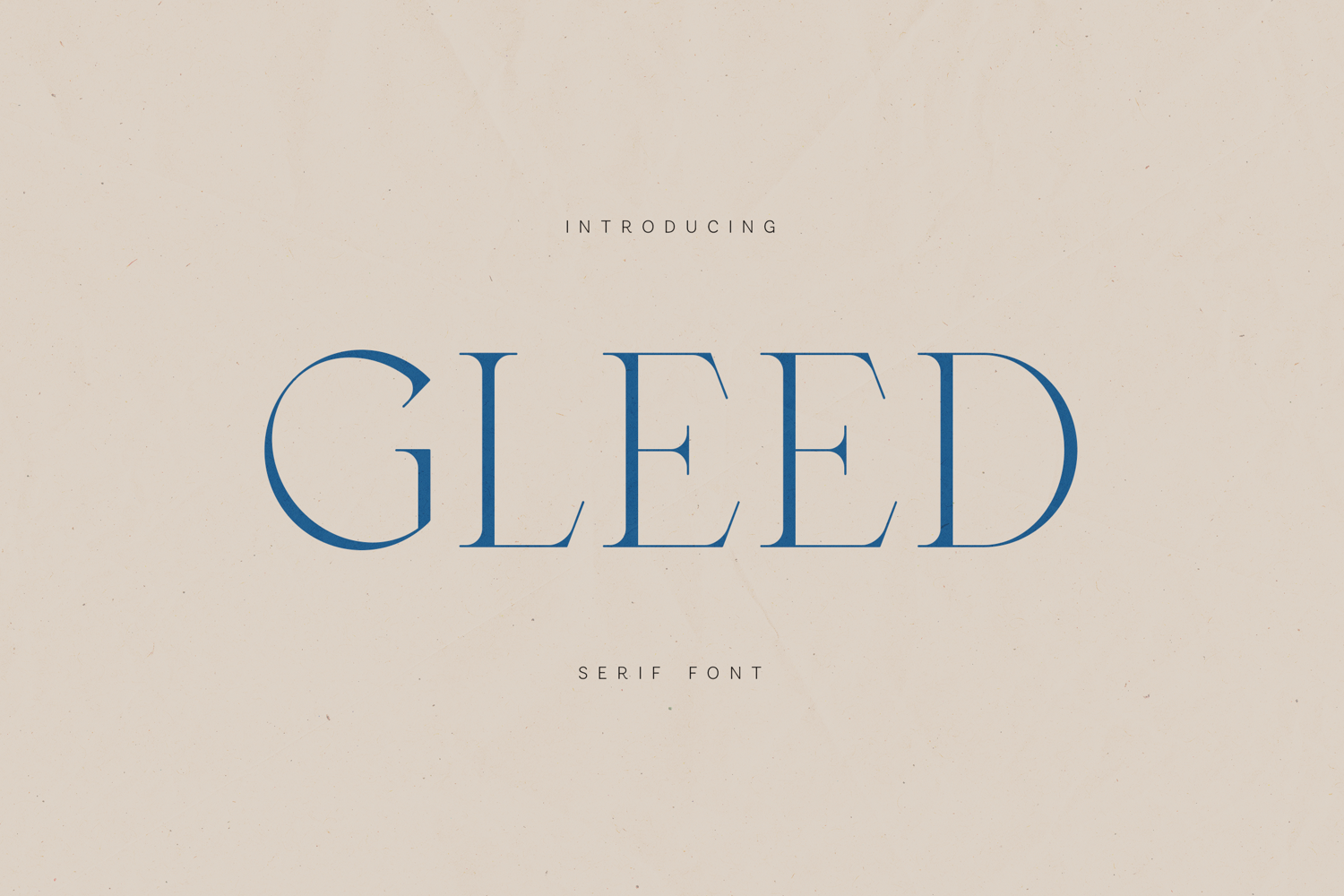
Gleed Elegant Modern Serif Font
Gleed is a refined modern serif typeface designed with elegance, clarity, and timeless proportions.
The font features delicate high-contrast strokes, soft curves, and carefully balanced letterforms that create a sophisticated and calm typographic rhythm. Its minimalist construction gives it a contemporary feel while still preserving the classic elegance of traditional serif typography.
Gleed was created for designers who need a clean and graceful serif that works beautifully in branding, editorial layouts, packaging, and luxury visual identities.
The generous spacing and smooth structure make it especially suitable for sophisticated headlines, fashion projects, and high-end branding systems.
Perfect For• Branding
• Editorial design
• Fashion magazines
• Luxury logos
• Packaging design
• Beauty brands
• Invitations
• Website headers